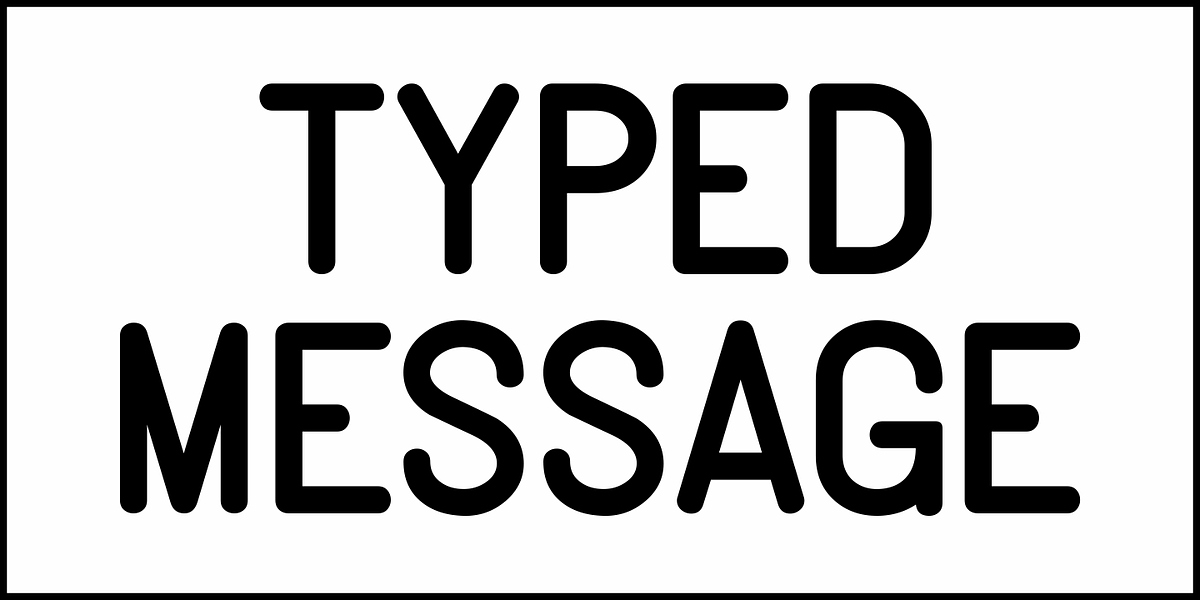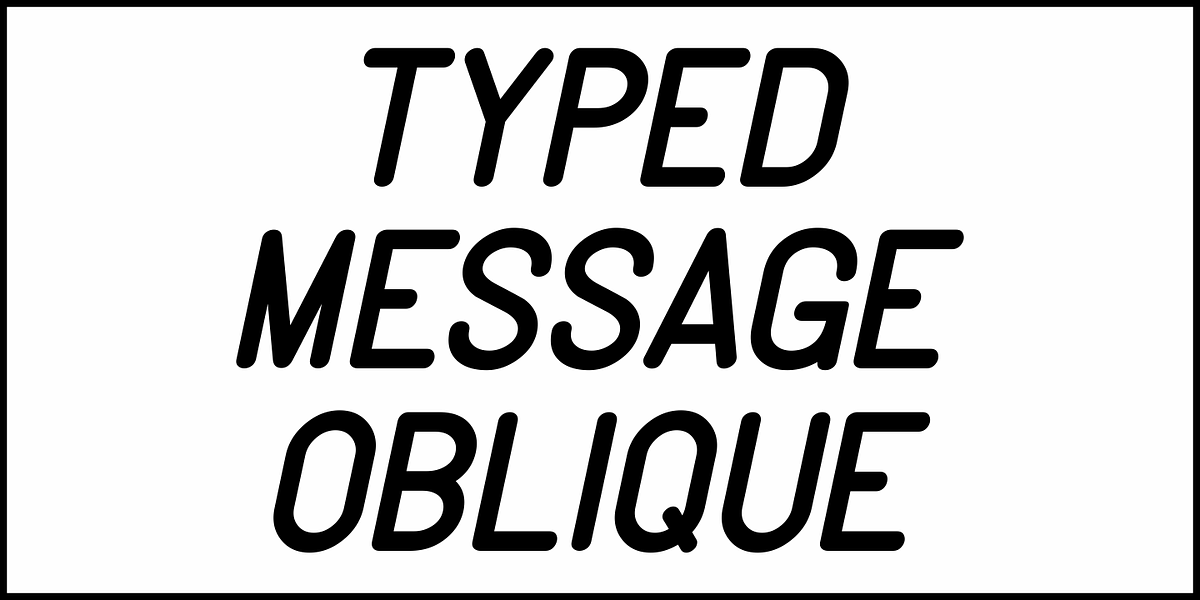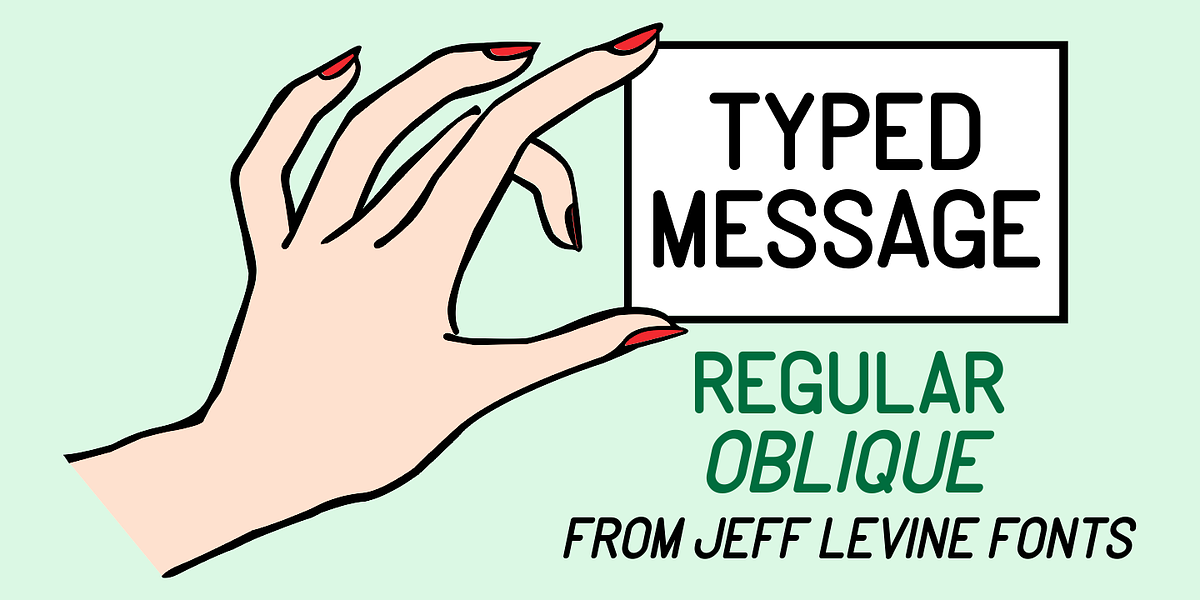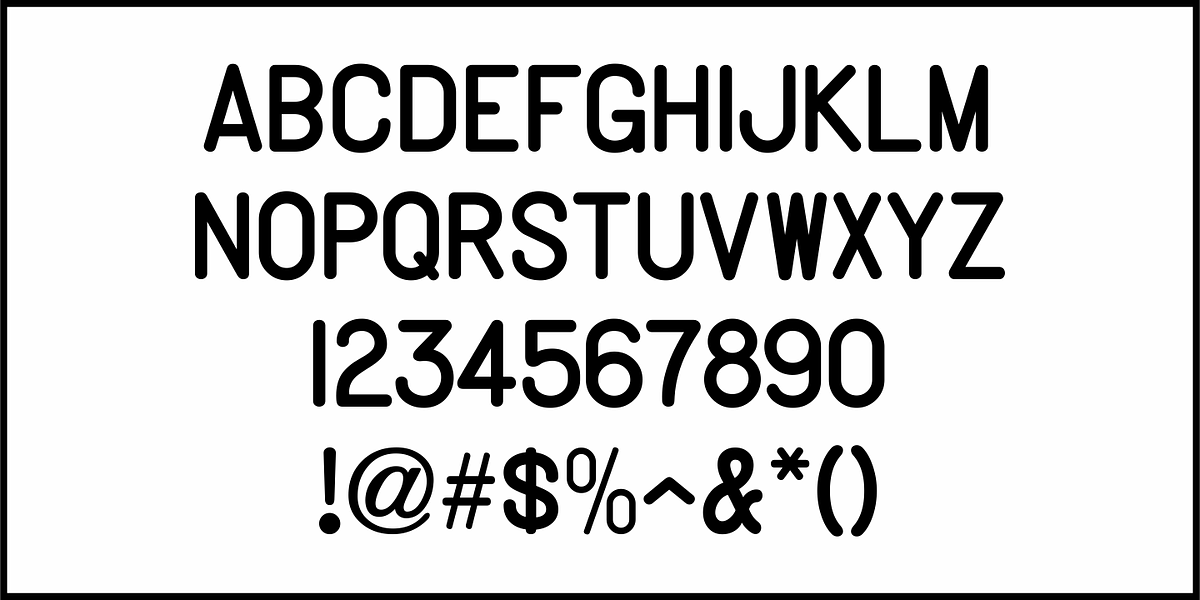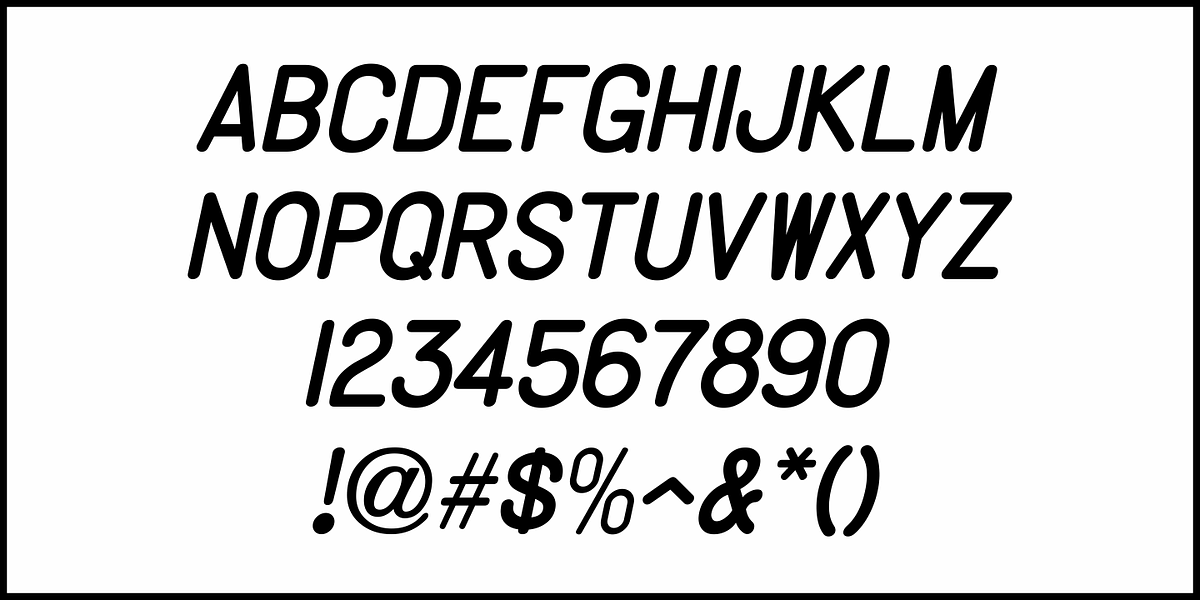
Typed Message JNL
In the 1934 ATF Book of American Types, there is a page dedicated to typewriter fonts. A bold sans serif design named "Jumbo Typewriter" inspired an update in digital form.
This is now available as Typed Message JNL in both regular and oblique versions.